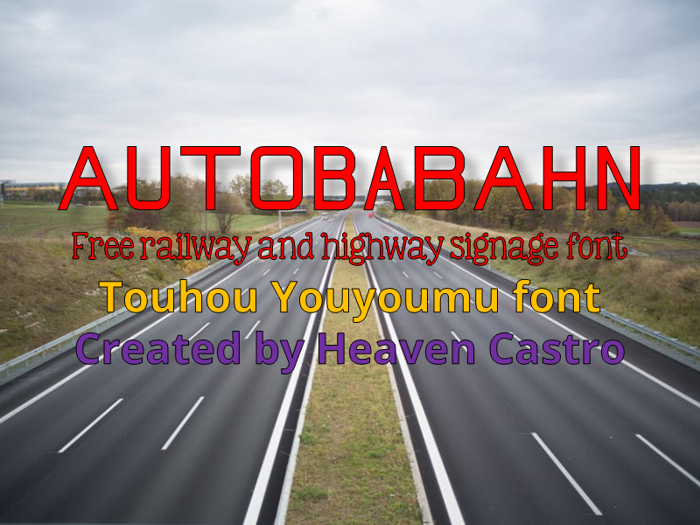
Autobabahn Font
Autobabahn is a font inspired by the Japanese railway and highway signages and the American license plates. The title combines the German word "autobahn" and the Japanese word "baba". This is not my first font to include superscript lowercase letters, with Sunflower Highway Signage Caps was the first.